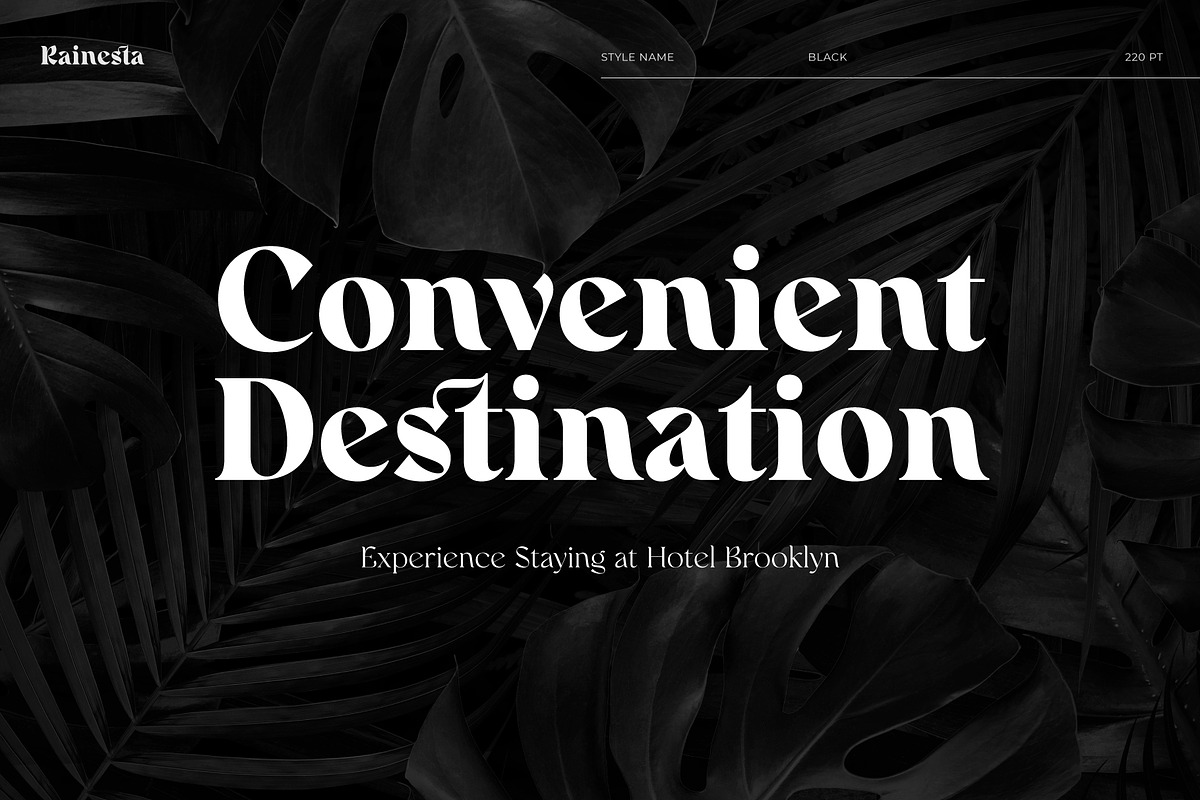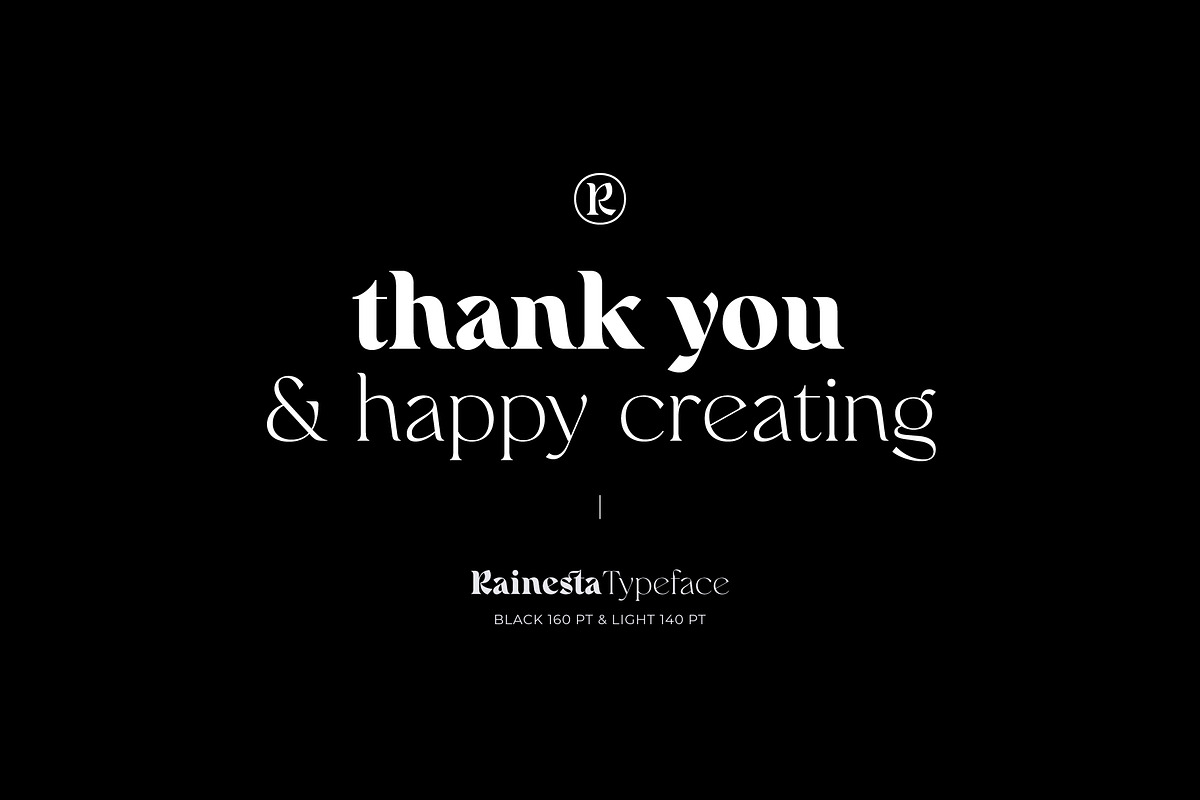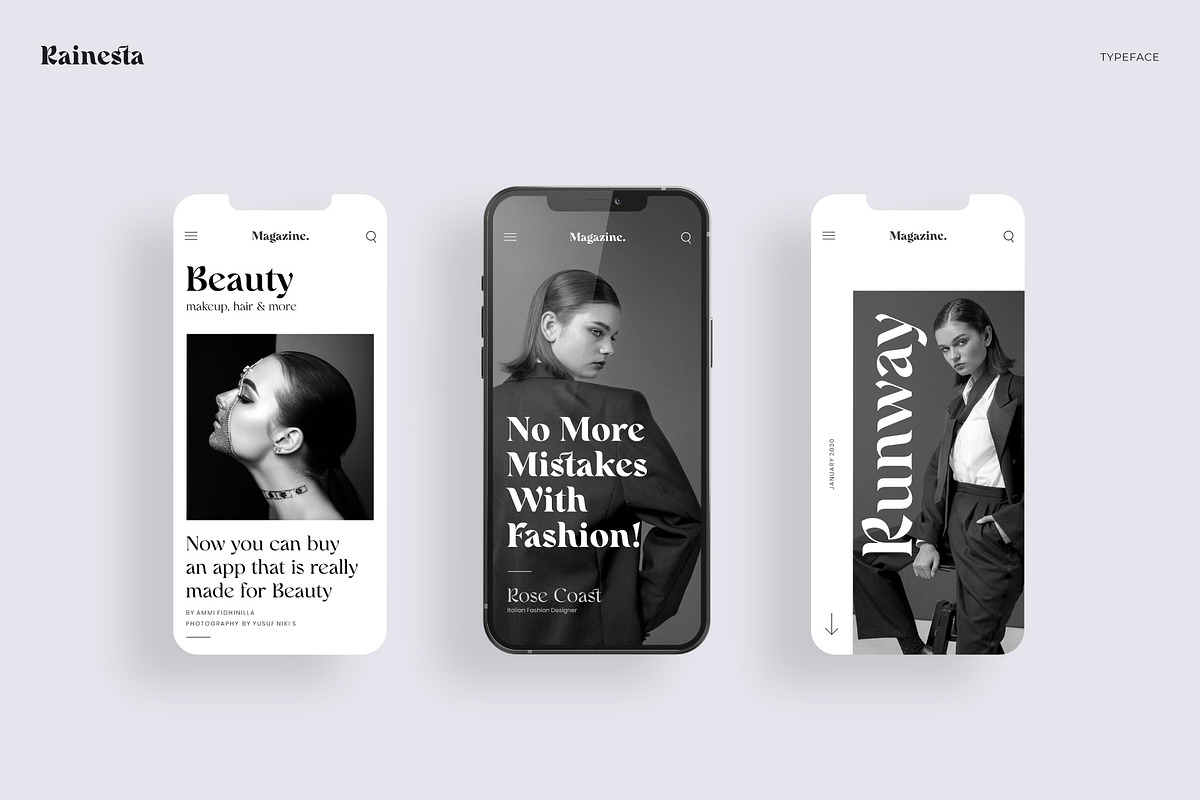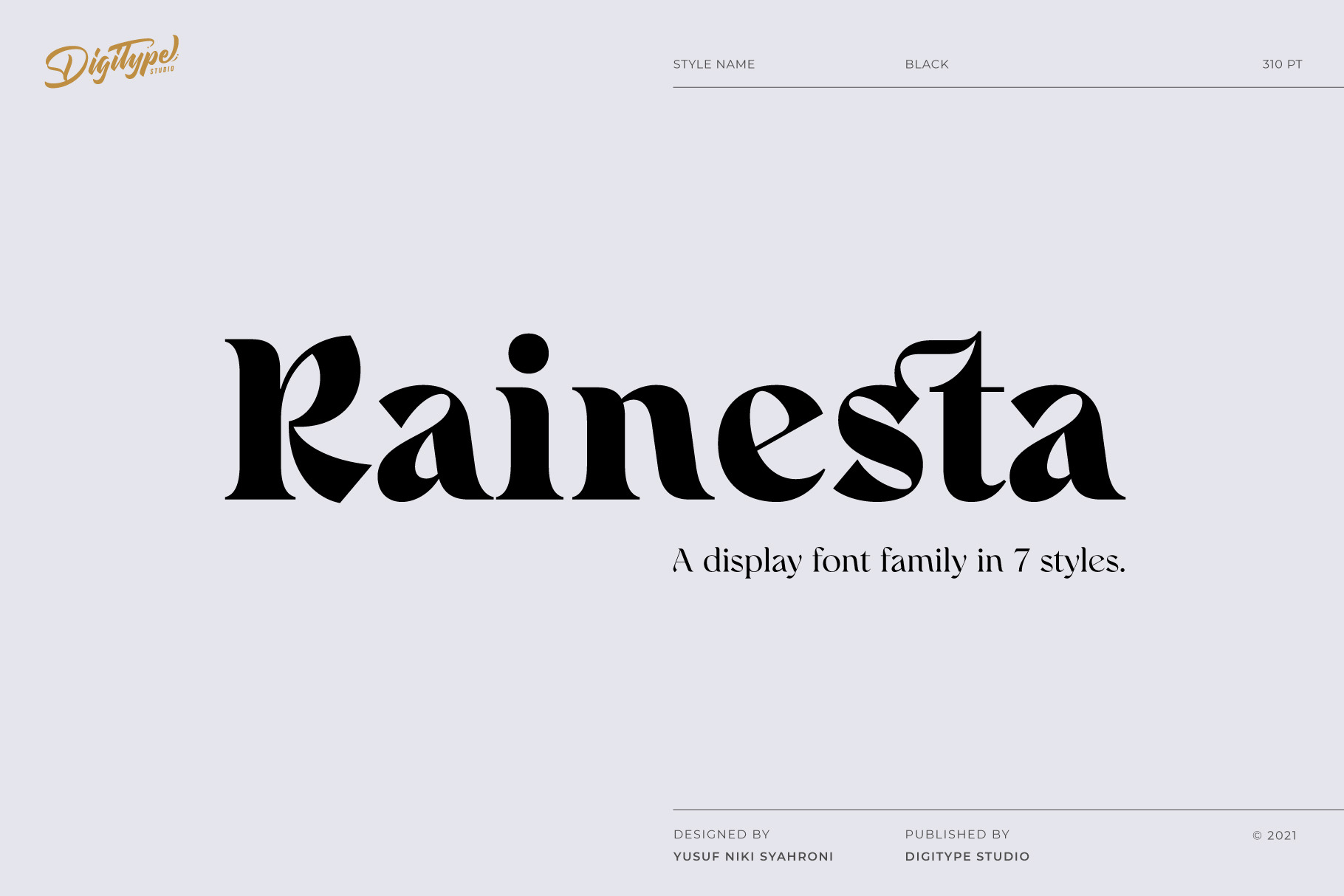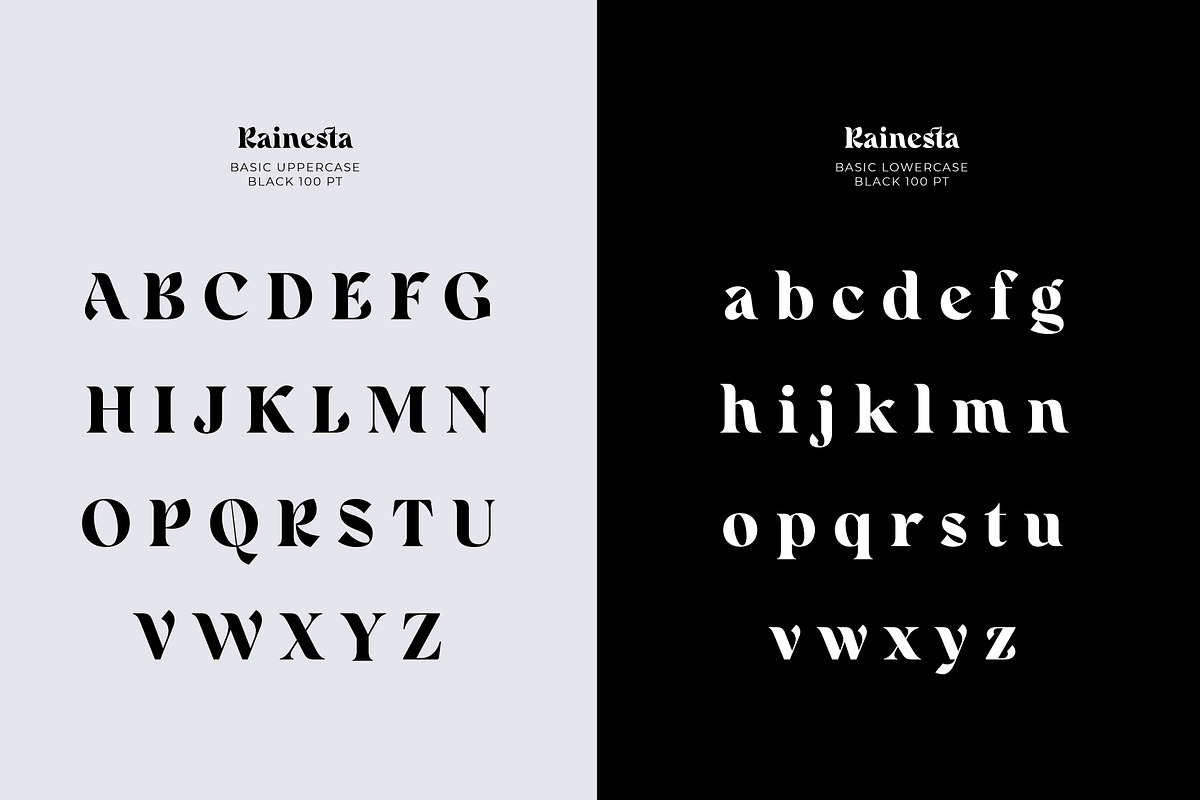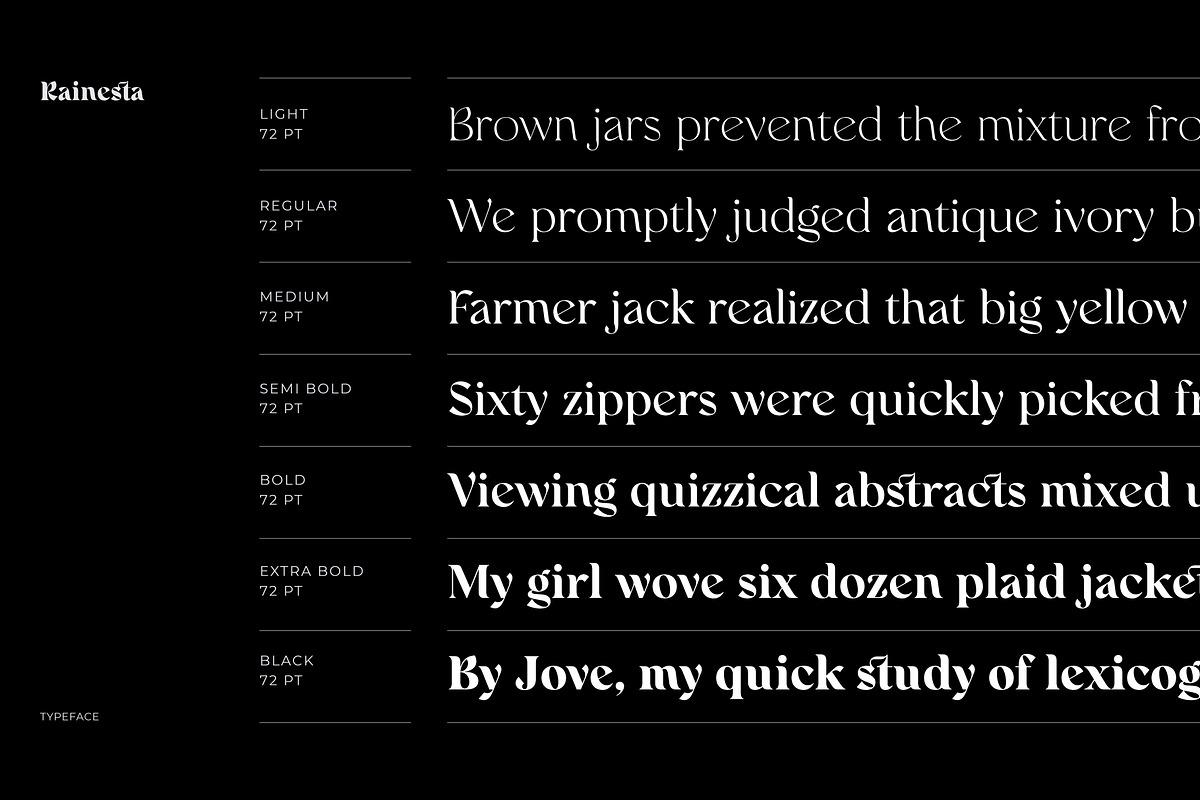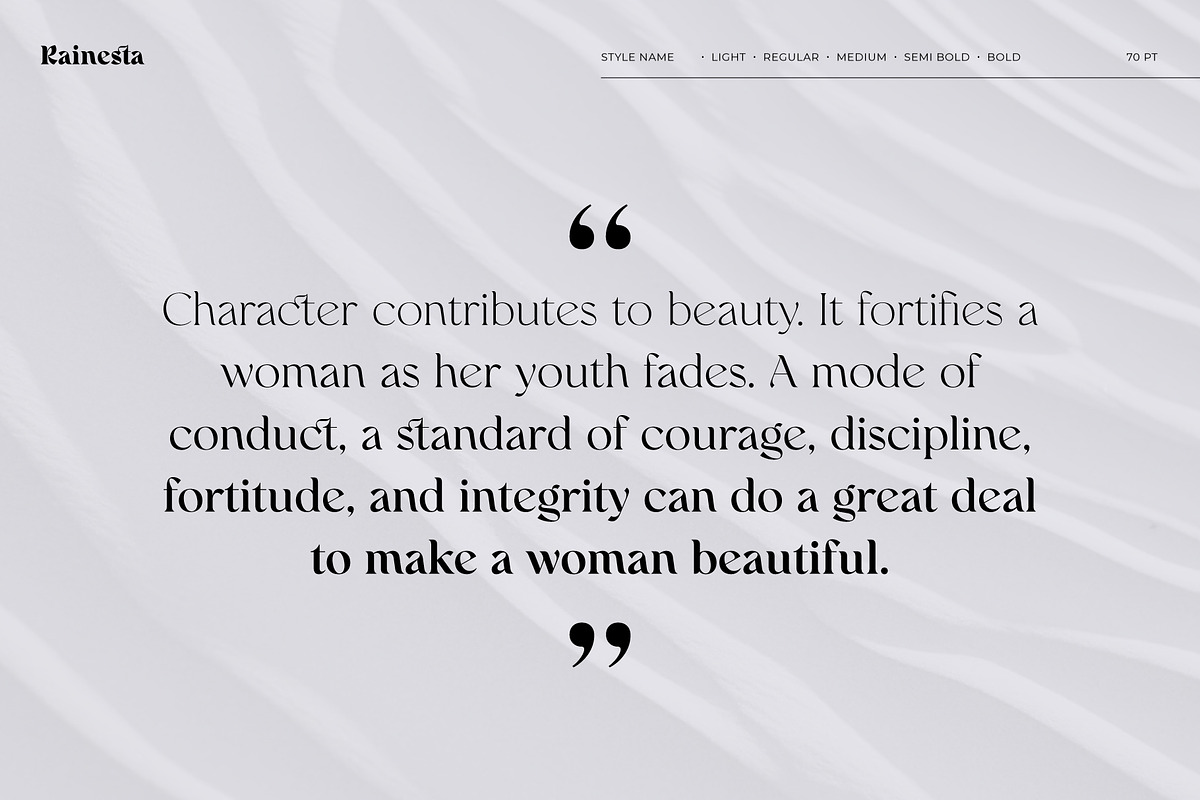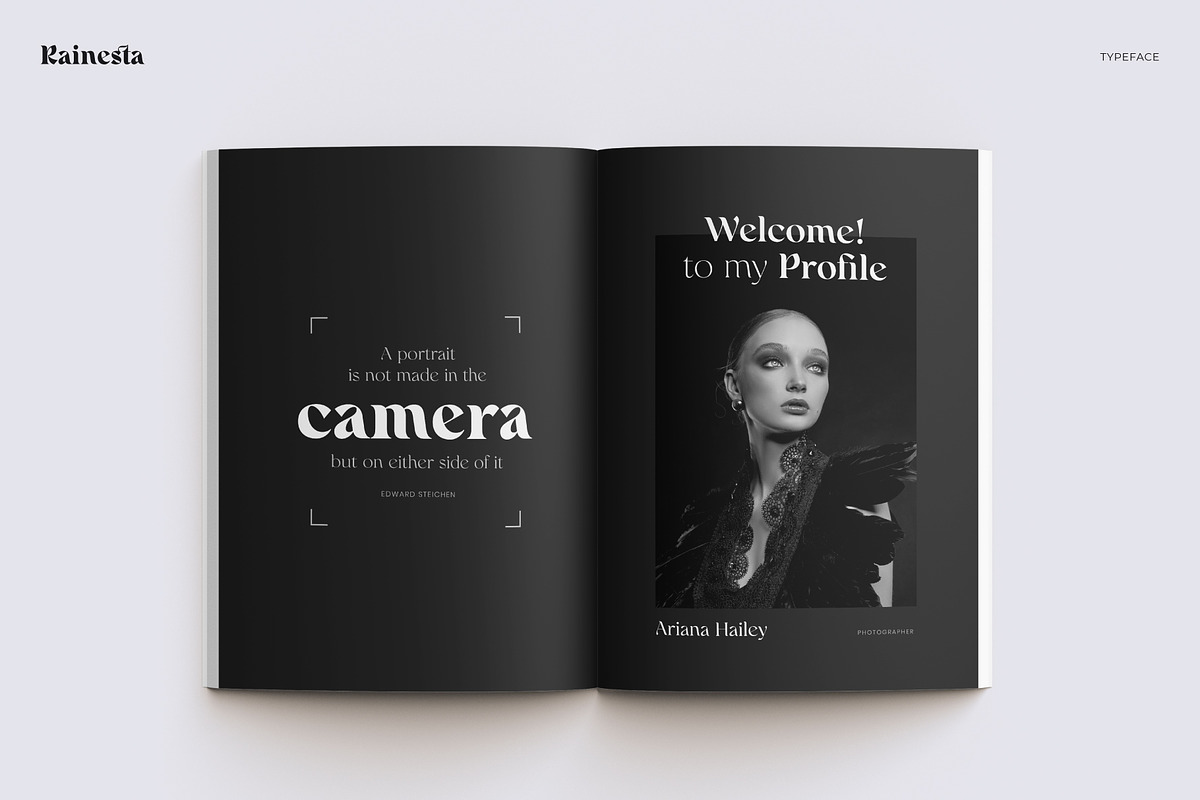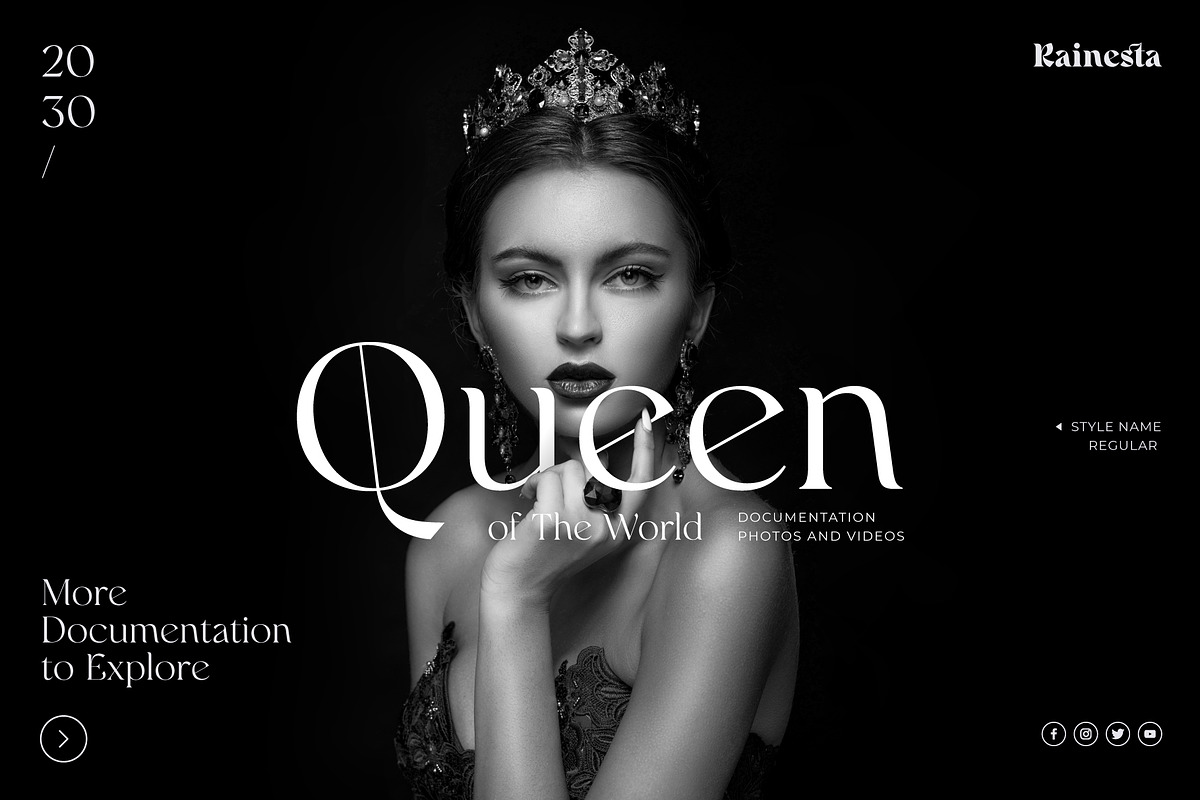
Rainesta Font
Rainesta comes with 7 unique font styles, you can use them according to your project, whether for headlines or taglines. This font is very suitable to be applied to various other formal forms such as websites, ebooks, labels, logos, magazines, books, packaging, fashion, make-up, stationery, labels, or all kinds of advertising purposes.